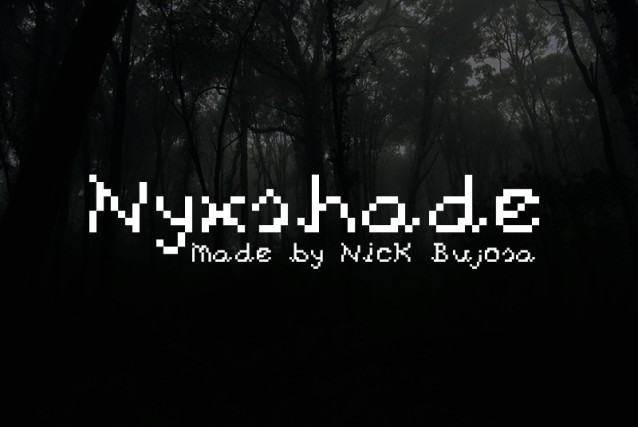
Nyxshade Pixel Font
Nyxshade Pixel Font is a high-quality pixel font tailored for indie game development, UI design, and retro-themed digital graphics. Inspired by early console and arcade typography, the font features a distinct black outline surrounding solid inner pixels, ensuring excellent contrast against any background.